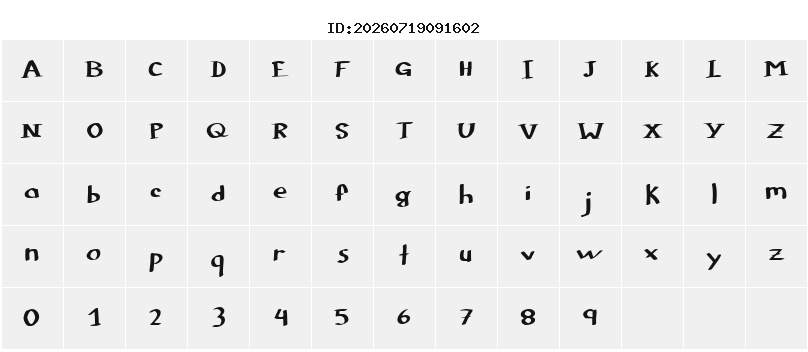
Colophon DBZ Preview
• Font Name: Colophon DBZ
• Designer: Tom Murphy 7
• Manufacturer: [Divide By Zero] Fonts
• Description: Created by Tom Murphy 7. Bad calligraphy font. Mixed sans and serif. [Divide By Zero] fonts: http://members.aol.com/vroomfonde/ttf/
About Colophon DBZ.ttf